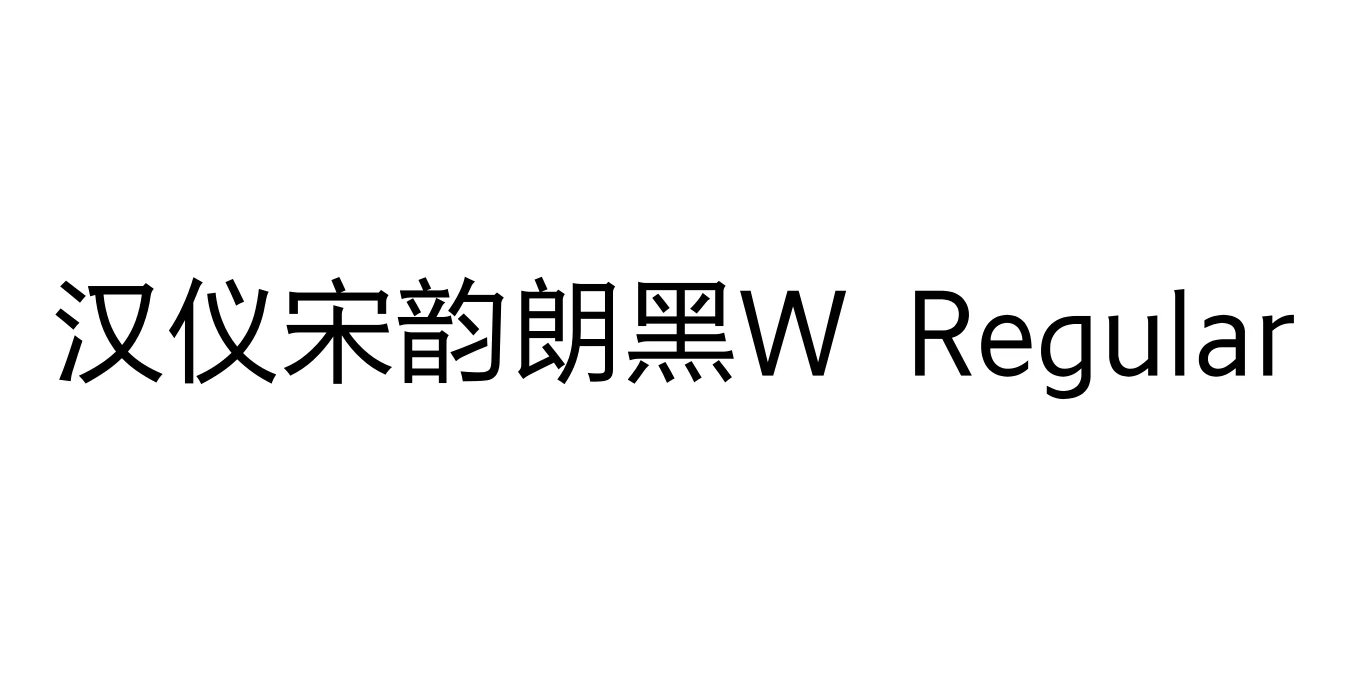
汉仪宋韵朗黑W Regular
Designed by Hanyi Fonts
| Font Name | 汉仪宋韵朗黑W |
| Category | Sans-Serif / Hybrid |
| Designer | Hanyi Fonts |
| Similar Fonts | Hanyi Qihei, Microsoft YaHei, Noto Sans CJK SC, Source Han Sans |
汉仪宋韵朗黑W Regular (Hanyi SongYunLangHei) is a masterfully crafted typeface that represents a contemporary bridge between traditional Chinese calligraphic structures and modern industrial design. Created by the skilled design team at Hanyi Fonts, this font family successfully merges the stroke characteristics of the 'Song' style (serif) with the clean, geometric clarity of 'Hei' style (sans-serif). The result is a hybrid aesthetic that offers exceptional legibility while maintaining a sophisticated, artistic flair suitable for high-end professional use.
The design philosophy behind 汉仪宋韵朗黑W Regular focuses on visual balance and rhythmic consistency. By refining the traditional thick-to-thin transitions and implementing a more uniform weight distribution, the font achieves a modern 'bright' (Lang) quality that shines in both print and digital environments. It is an ideal choice for designers looking for a typeface that communicates both cultural heritage and forward-thinking innovation, making it a staple for corporate communications and editorial design in the Chinese-speaking world.
汉仪宋韵朗黑W Regular Best Uses
Perfect for modern company logos and official brand documentation.
Highly effective for user interfaces and digital content requiring clear readability.
Excellent for magazine headlines and sophisticated layout spreads.
Well-suited for premium product packaging and high-impact marketing materials.